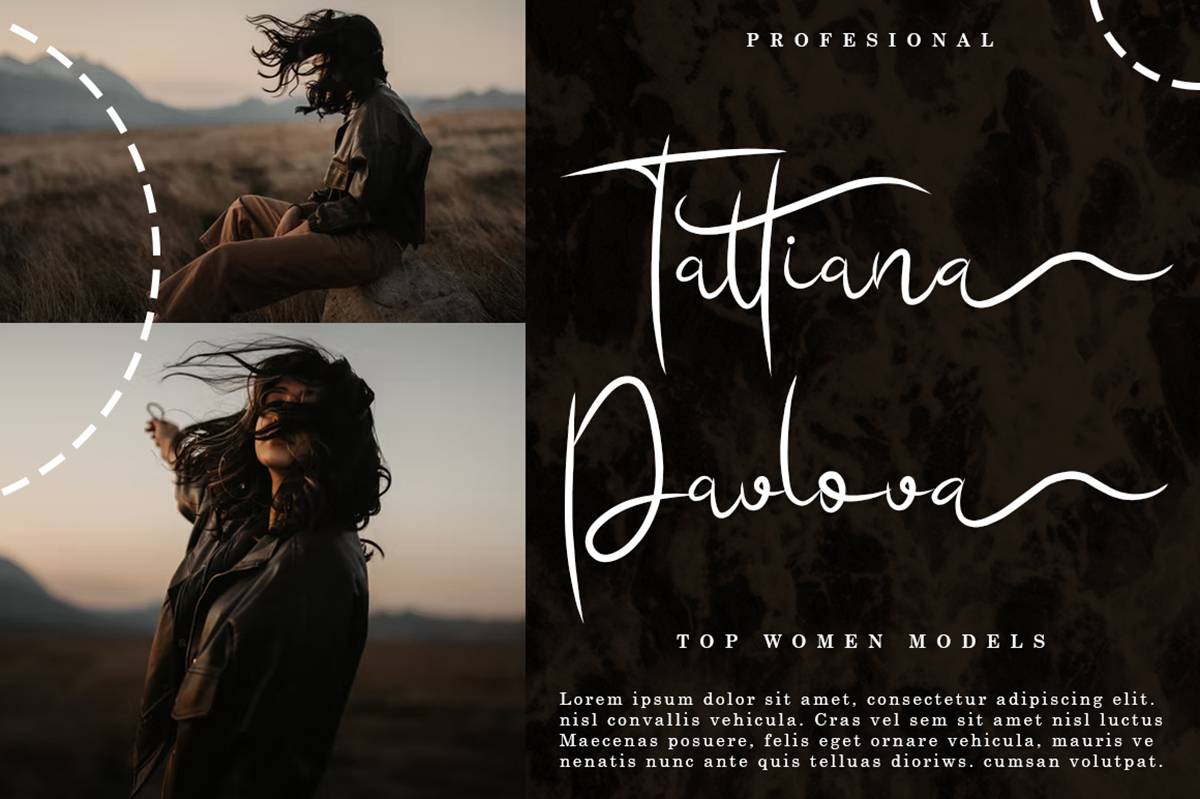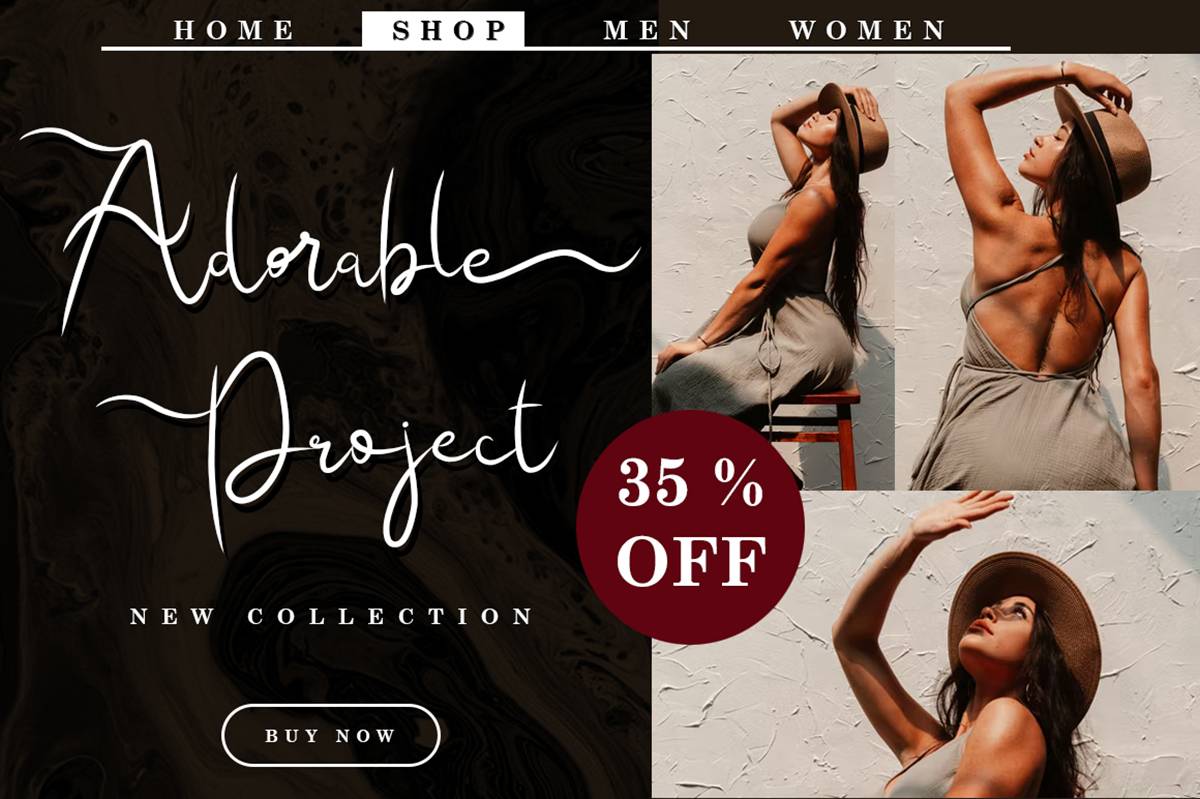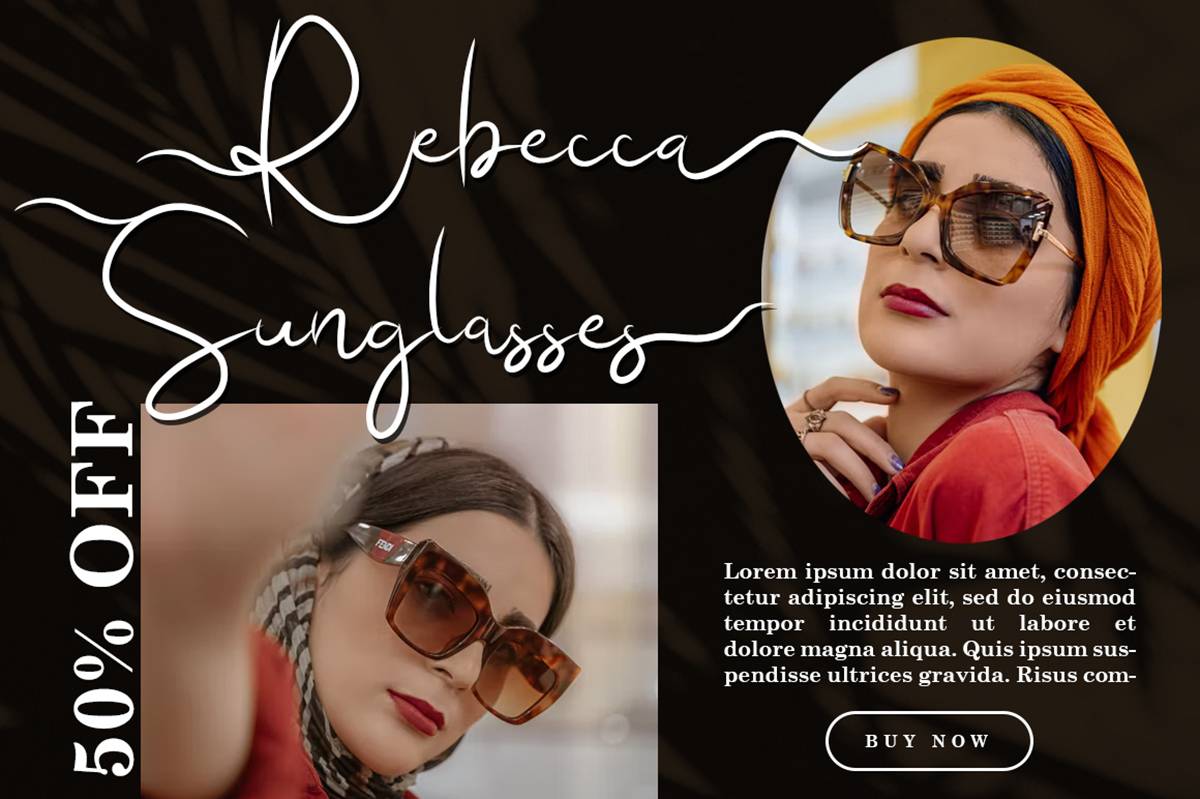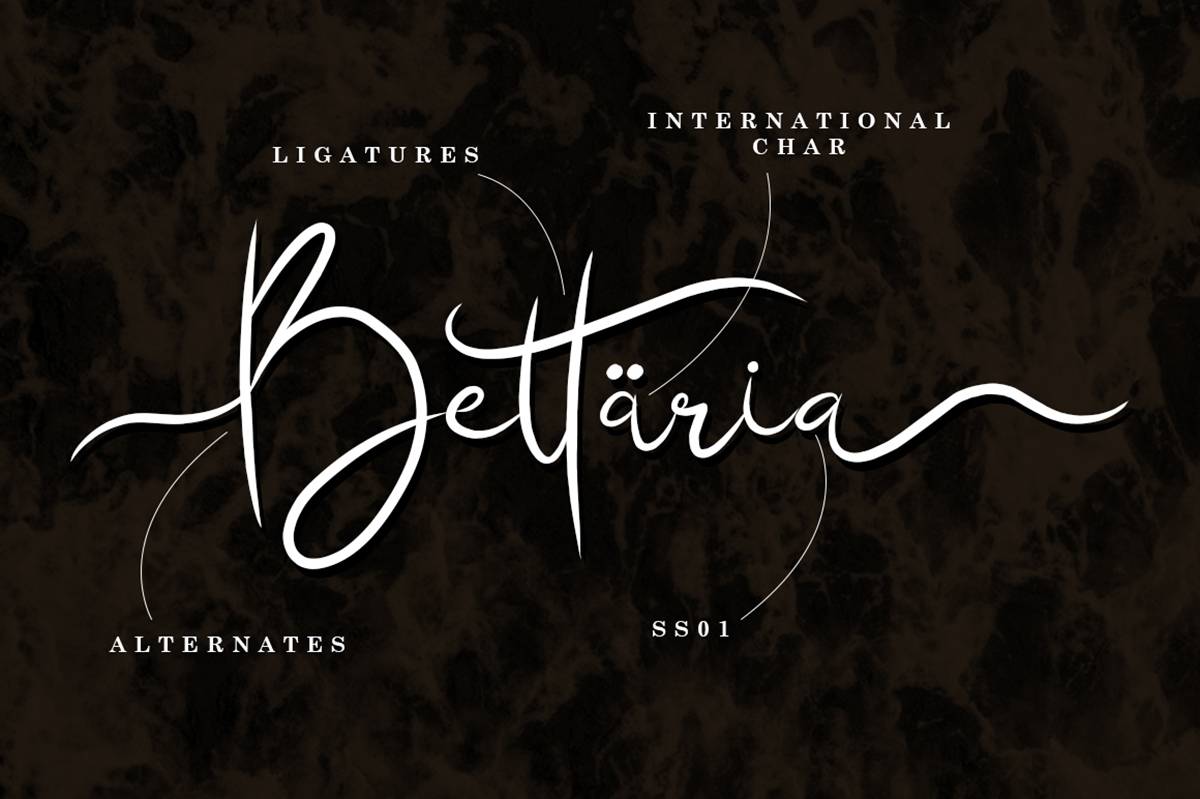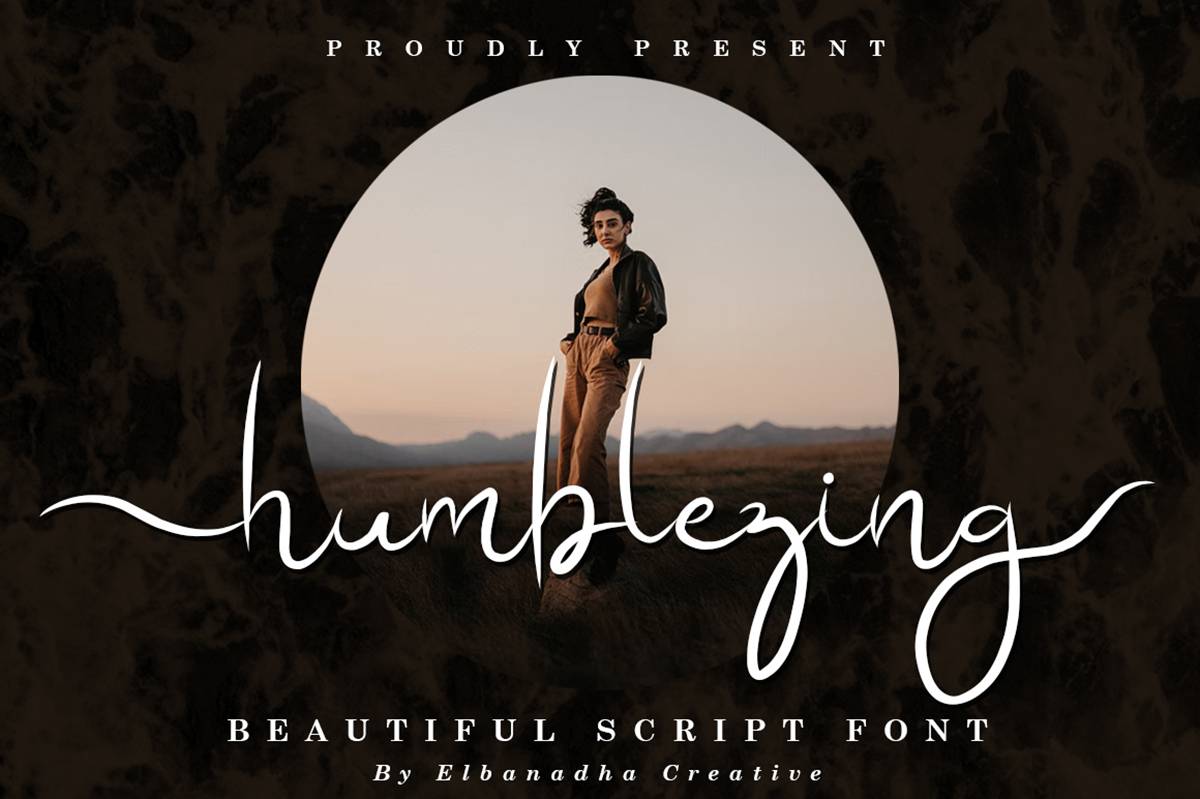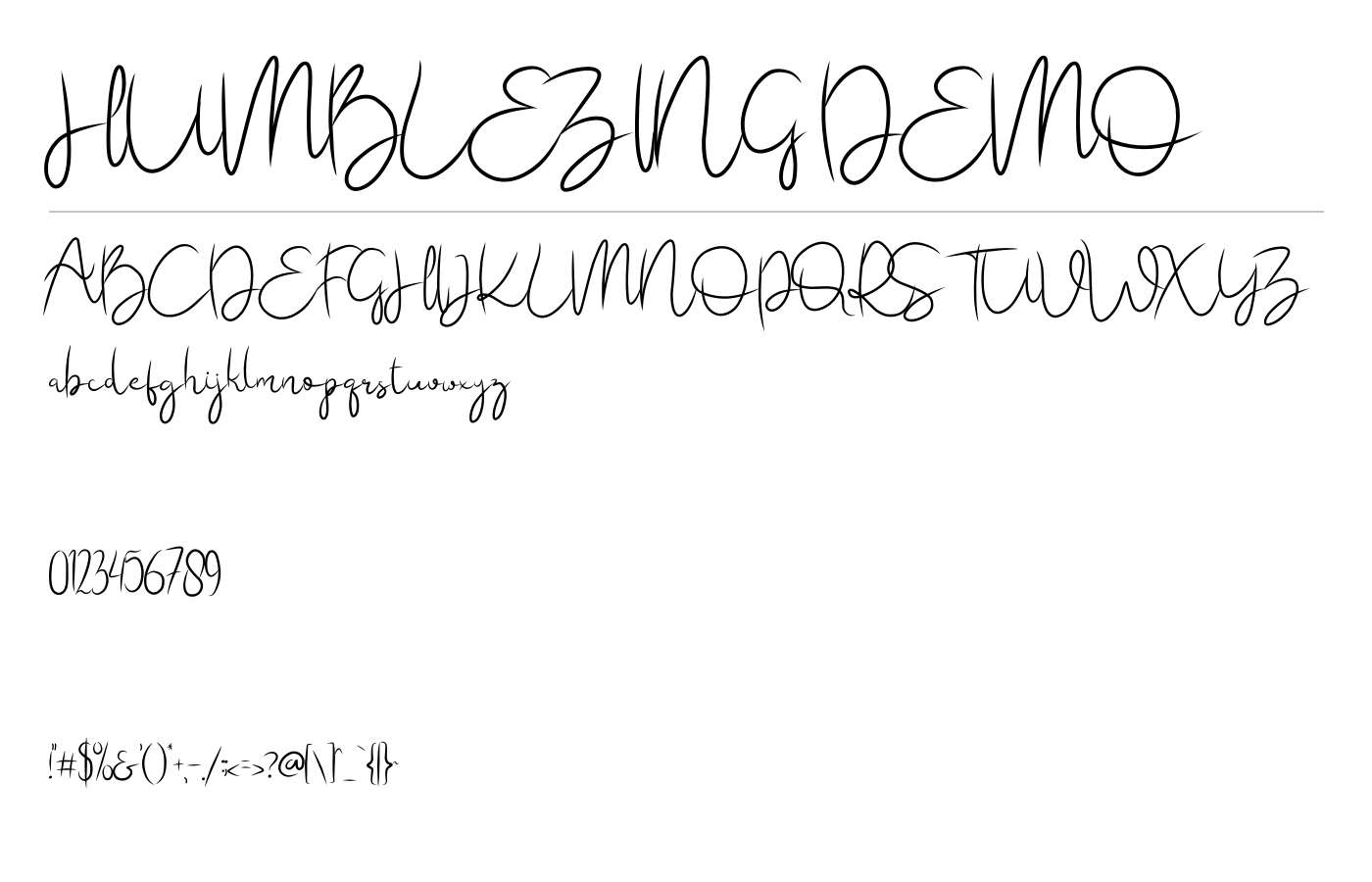
Humblezing is a delicate, handwritten script font featuring slender, elongated letterforms with a playful and slightly whimsical character. Its fine lines and casual style make it ideal for creative projects, invitations, and branding that seek a personal and approachable touch. This font shines in designs requiring a light, airy feel with a touch of elegance and charm.
Humblezing Font
About Humblezing Font
| Font family | Humblezing Font |
| Designer | Elbanadha Creative |